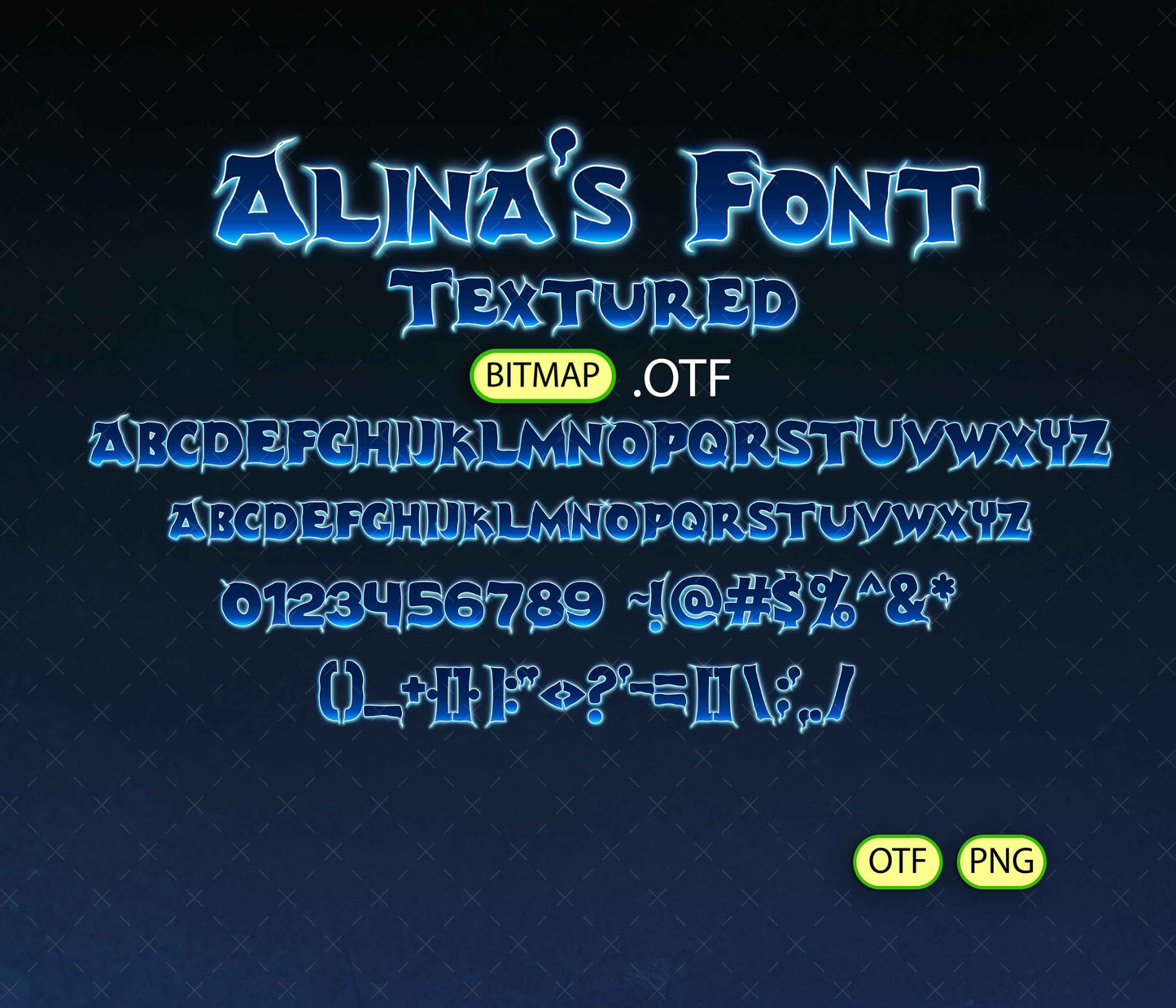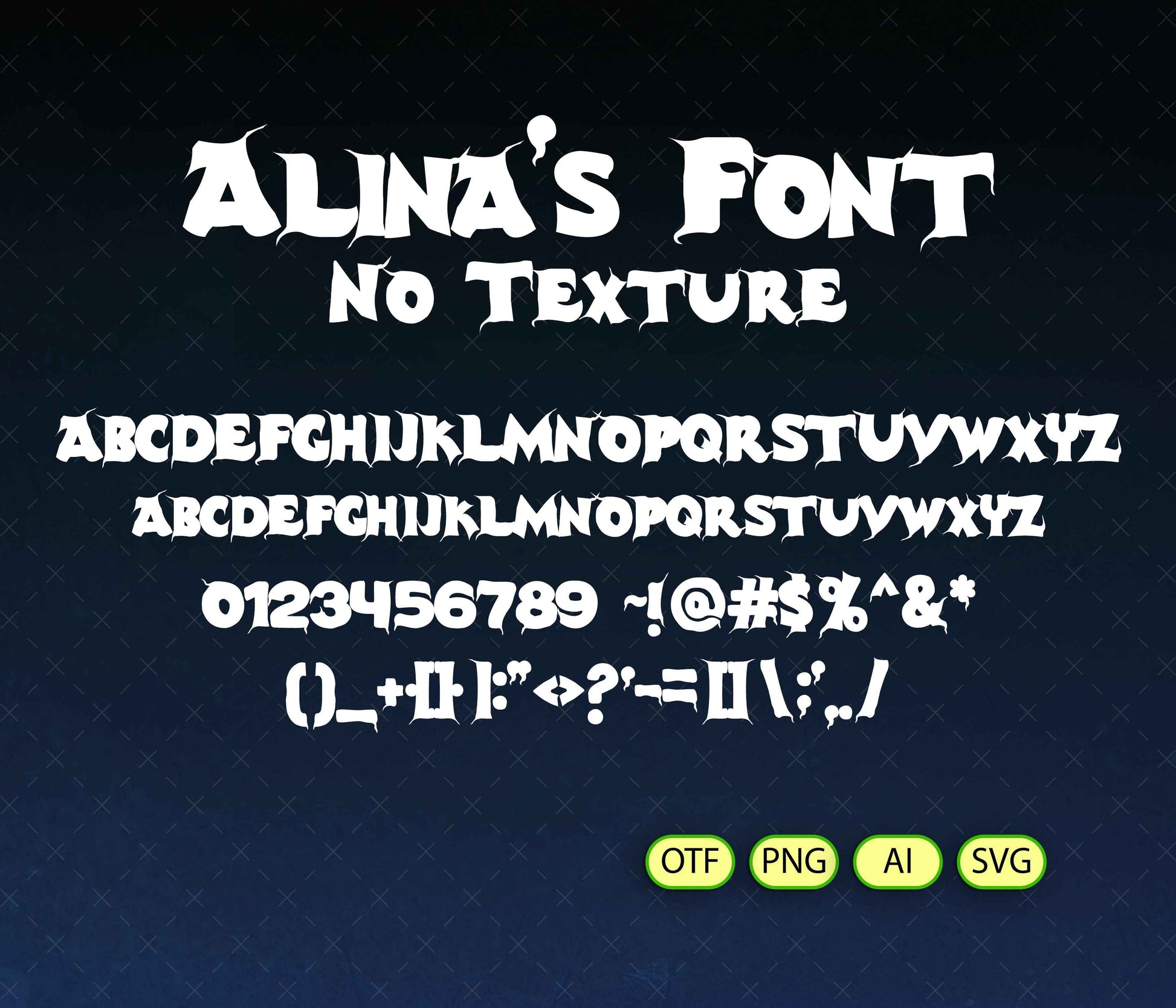
Friendly Specter Font Textured
Friendly Specter Textured Font: A Whimsical Colored Typeface
Introducing the Friendly Specter Textured Font, a digital typeface capturing the whimsical essence of a beloved ethereal character. This textured font weaves the playful spirit and gentle allure of a friendly ghost into each character, offering a unique blend of whimsy and elegance. It's the perfect choice for artisans looking to infuse a touch of fantasy and nostalgia into their creations.
Whether you're designing charming birthday invitations, crafting enchanting cake toppers, or creating whimsical t-shirts, this font brings a playful yet sophisticated touch to your projects. The subtle texture adds a tangible warmth, reminiscent of a gentle spectral nature, making it a delightful choice for both digital and print creations.
Easily compatible with various design tools, the Friendly Specter Textured Font allows a smooth transition from digital design to tangible art. It's not just a font; it's a journey back to tender and playful adventures, adding a narrative of whimsy to your creative endeavors. The ghostly charm of this font is bound to spark conversations, making your creations stand out in a crowd.
So, embrace the nostalgic allure and playful spirit of a friendly apparition with this textured font, and let your creativity soar in a world of gentle ghosts and whimsical adventures.